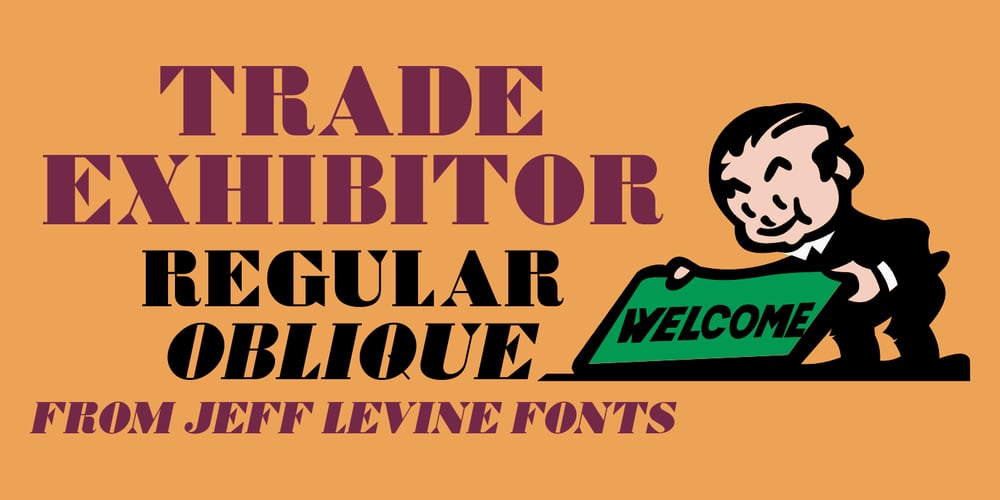
Trade Exhibitor JNL
Trade Exhibitor JNL Font Family was designed by Jeff Levine and published by Jeff Levine. Trade Exhibitor JNL contains 2 styles and family package options. Several ads for Paramount’s “All Talking Pictures” found in the pages of the December 12, 1928 issue of Exhibitors Herald World featured an extra bold, serif type face reminiscent of Bodoni Bold, but also carrying influences of the emerging Art Deco movement.This was the working model for Trade Exhibitor JNL, which is available in both regular and oblique versions.